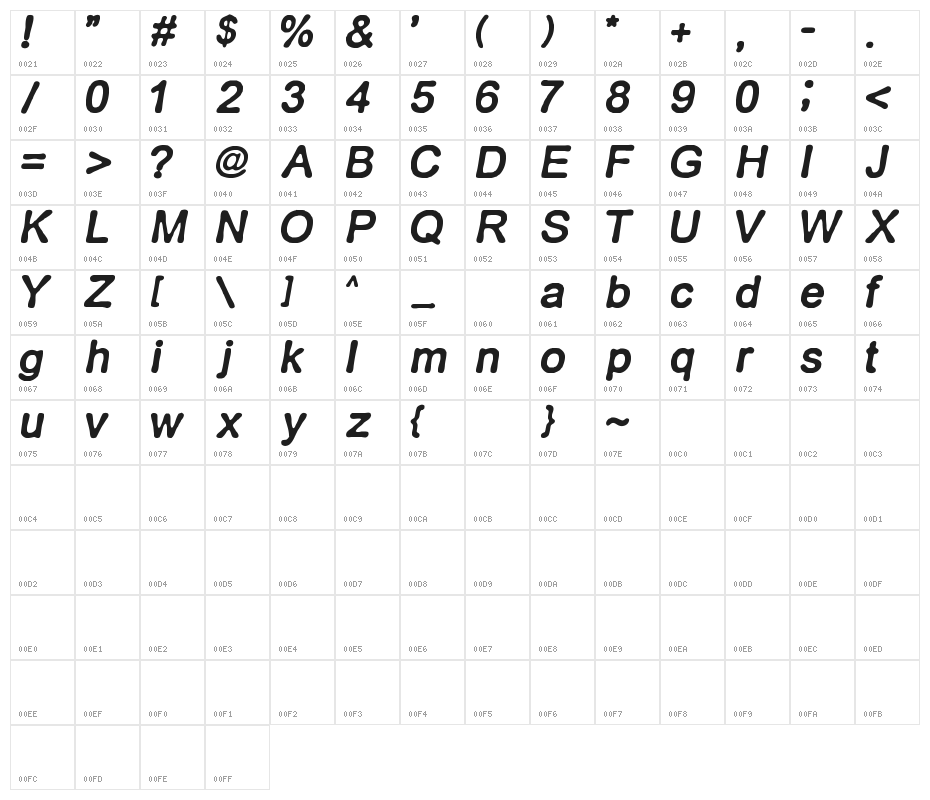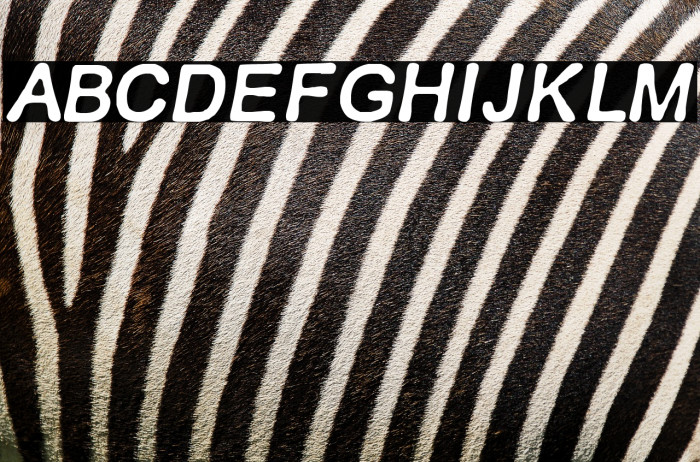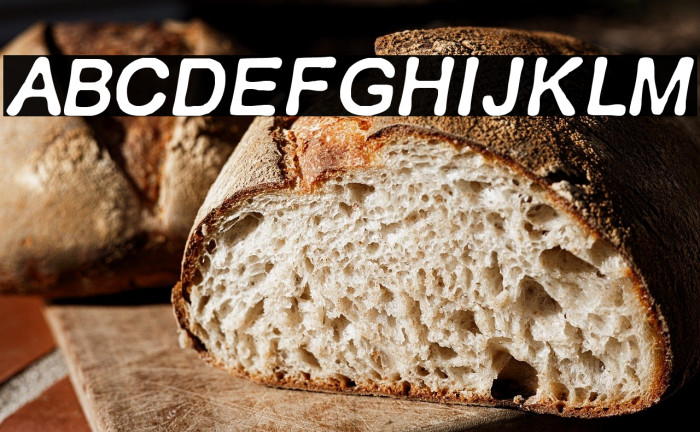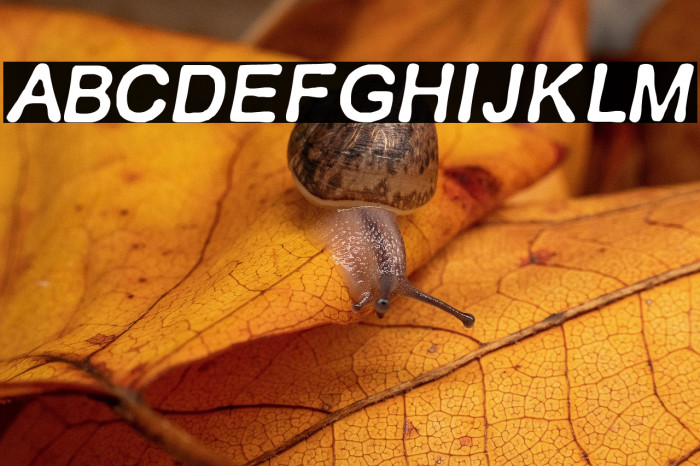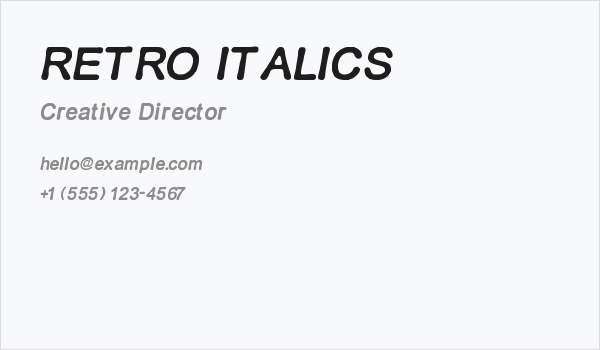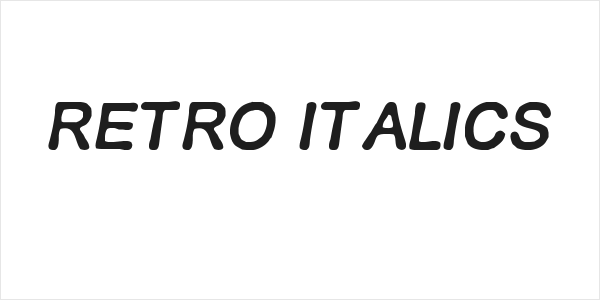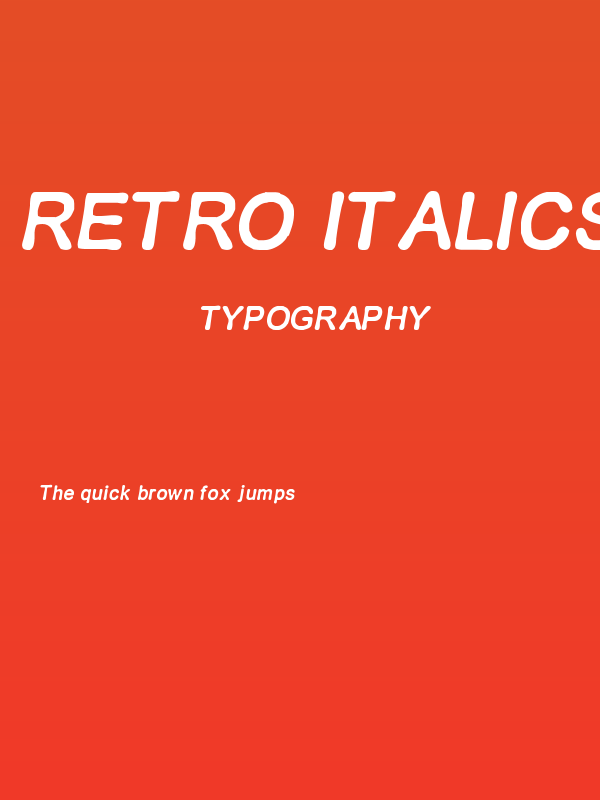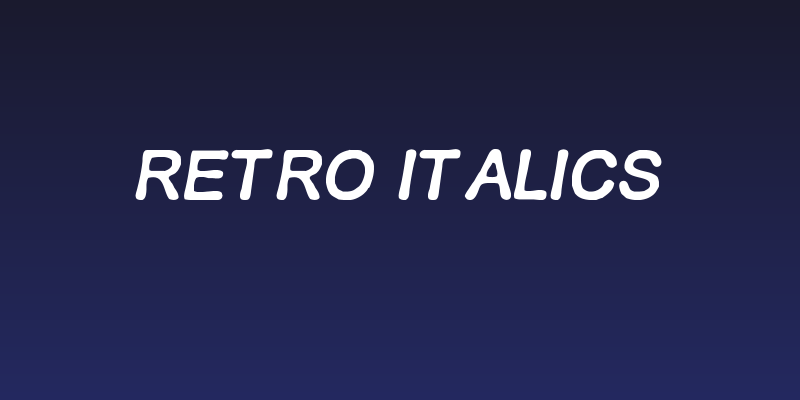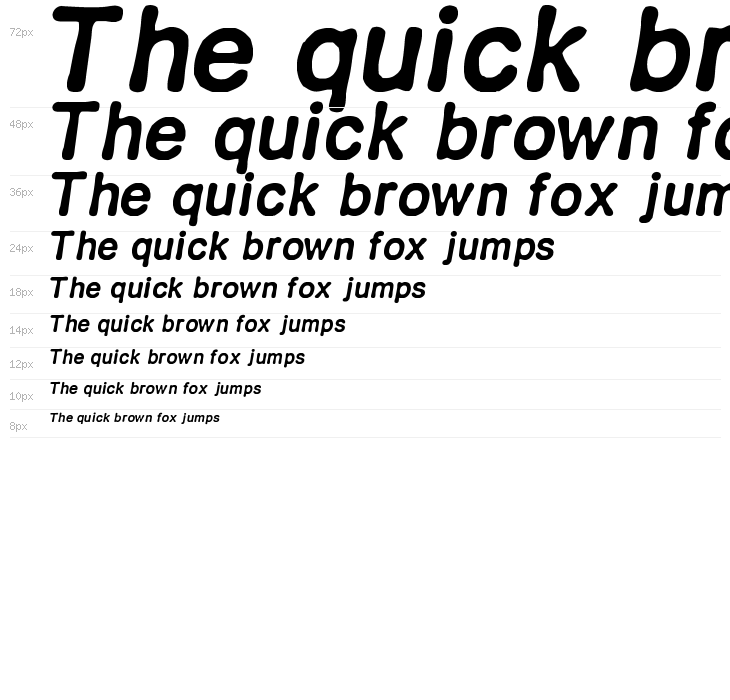
RETRO ITALICS Font
RETRO ITALICS Description
This font features a playful and dynamic style with a distinctly retro flair. The characters are italicized, giving them a sense of motion and energy. The rounded edges and slightly bold strokes contribute to a friendly and approachable appearance. The uppercase and lowercase letters maintain a consistent style, with a slight slant that enhances the overall retro aesthetic. The numerals and special characters are designed to match the letters, ensuring a cohesive look across all text. This font is ideal for projects that aim to evoke a sense of nostalgia or fun.
| Overall Style | Retro |
| Proposed Projects | Ideal for vintage-themed posters, retro branding, playful advertisements, and nostalgic graphic designs. |